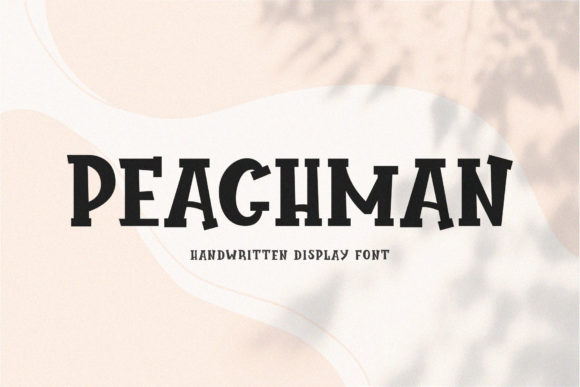
Embrace the charm of Peachman Font, a delightful handwritten treasure crafted by BrandSemut. This display font exudes warmth and playfulness, adding a personal touch to your creative endeavors. Whether you're a seasoned designer or just starting your artistic journey, Peachman will captivate your audience with its unique and endearing qualities.
Dive into the world of Peachman and discover a font that dances with joy across your screens. Its delicate strokes and playful curves evoke a sense of nostalgia, reminding us of handwritten letters and childhood memories. With Peachman, your designs will radiate sincerity and authenticity, leaving a lasting impression on all who encounter them.
Peachman's versatility knows no bounds. It effortlessly complements a wide range of design aesthetics, from the playful and quirky to the elegant and sophisticated. Its charm shines through in logos, branding, social media posts, and even the smallest of DIY projects. Whether you're creating heartfelt greeting cards, eye-catching posters, or personalized merchandise, Peachman will transform your ideas into tangible works of art.
With Peachman at your fingertips, your designs will blossom with creativity. Its exceptional legibility, even at small sizes, ensures that your messages will be crystal clear and leave a lasting impact. Say goodbye to pixelated fonts that compromise your designs. Peachman's crisp lines and smooth curves will elevate your work to new heights, capturing the attention of even the most discerning eyes.
Unlock the full potential of Peachman Font today and embark on a creative journey like never before. Let its playful spirit ignite your imagination and carry your designs to extraordinary new frontiers. From heartfelt handwritten notes to stunning digital creations, Peachman will be your constant companion, helping you turn your artistic dreams into a tangible reality.